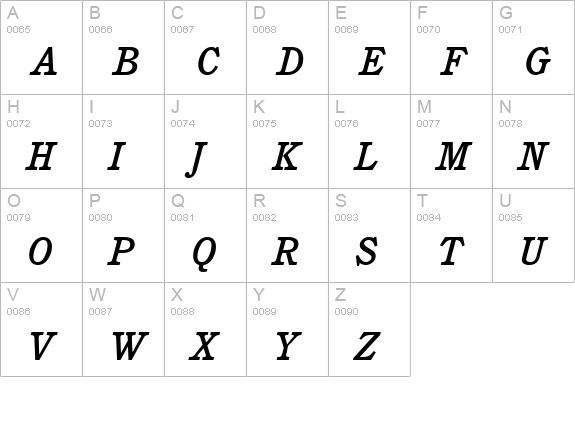
C851-Roman-Medium-Italic is a balanced, medium-weight, italic variant in the C851 typeface family \xE2\x80\x94 well suited to sub-headlines, navigation, and balanced editorial work.
C851-Roman-Medium-Italic font exudes a classic elegance with its delicate yet sturdy letterforms. Its timeless design makes it a versatile choice for a wide range of projects, from branding to editorial design. The italic style adds a touch of sophistication and flair, perfect for conveying a sense of refinement and style. What sets C851-Roman-Medium-Italic font apart is that it is not only beautifully crafted, but also free to download. You can easily access this exquisite font at FontsMarket.com, where it is available for anyone looking to elevate their design projects with a touch of Roman-inspired charm. Whether you're working on a logo, website, or print materials, C851-Roman-Medium-Italic font is sure to make a lasting impression.